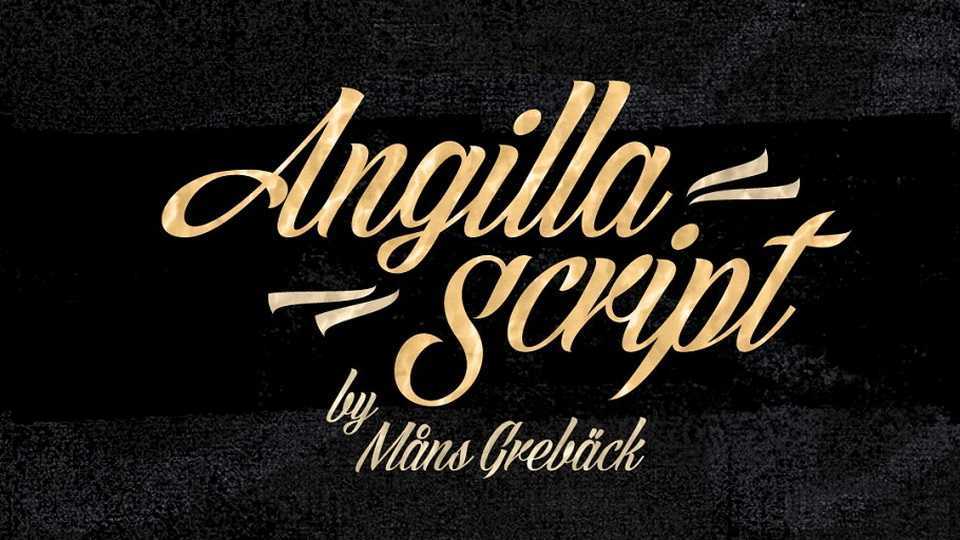
Download Angilla Script, a tattoo inspired calligraphy typeface. While having a feminine flow, Angilla Script has confidence, attitude and dare. Use it for a concert poster, a logotype or to give any project a bit of extra personality.
Designer: Måns Grebäck